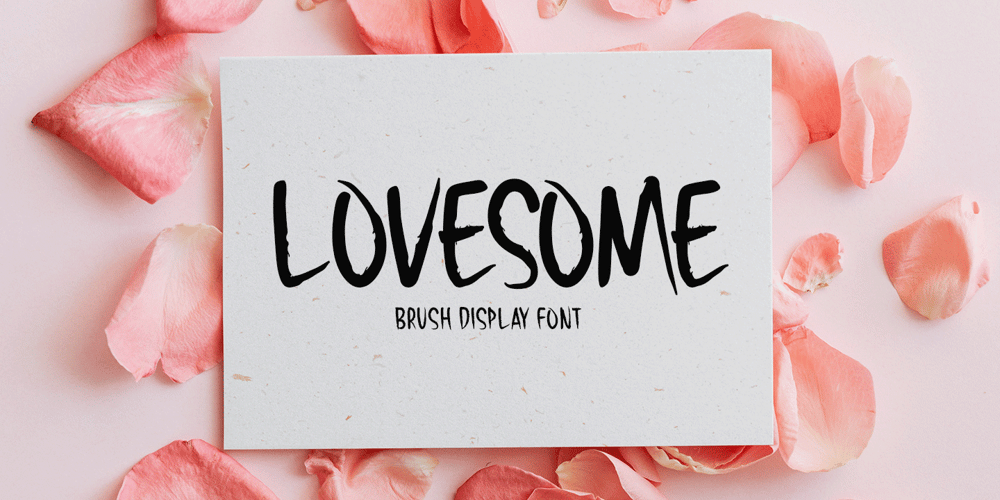
Lovesome Font Family was designed by Md Shohail Bhuian and published by Seemly Fonts. Lovesome contains 1 styles and family package options. Lovesome is a brand-new, brushed display font. Lovesome is perfectly suited for stationery, logos, t-shirts, paper, print designs, website headers, photo frames, flyers, music covers, posters, image sliders, and much more.